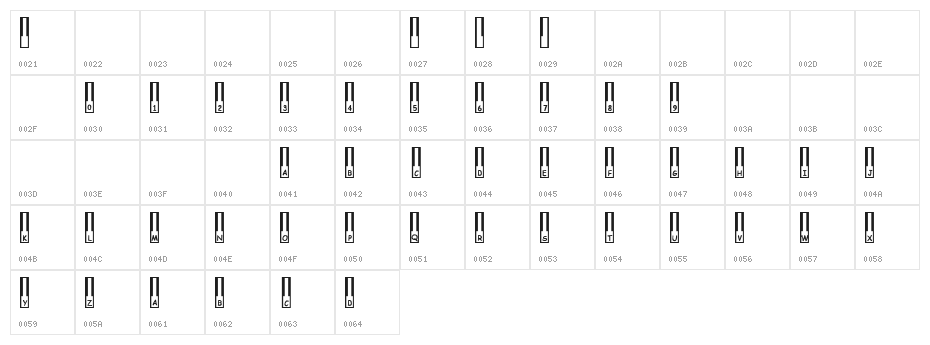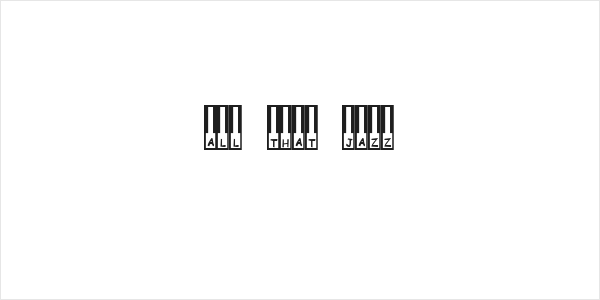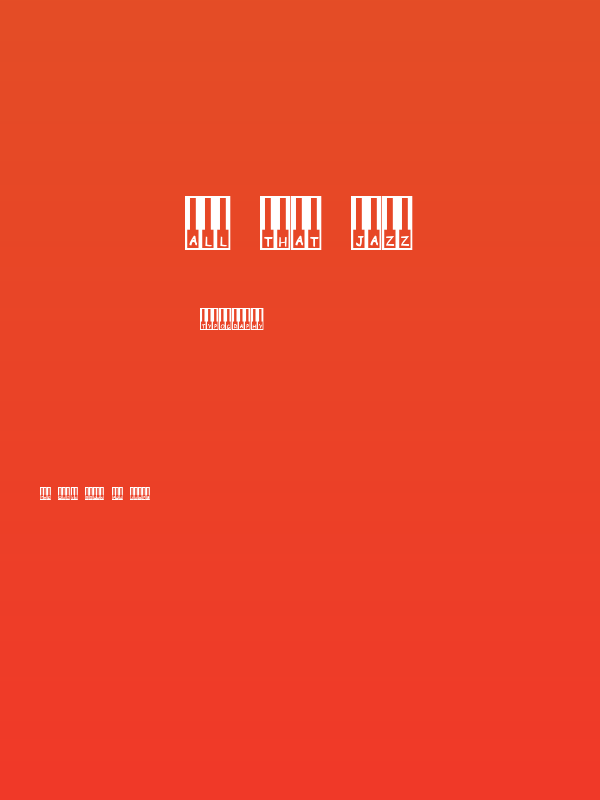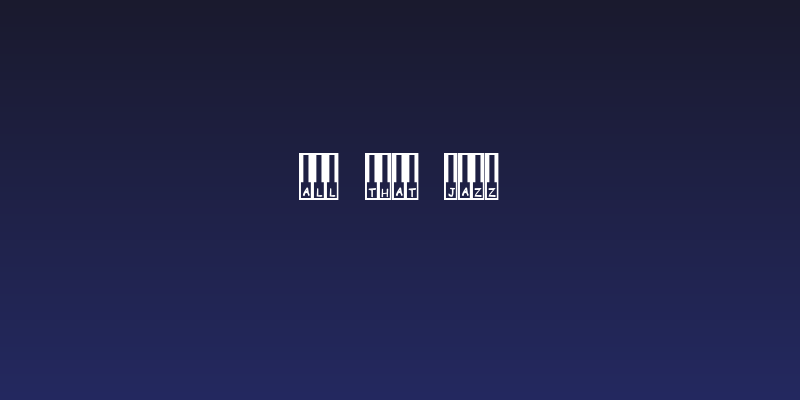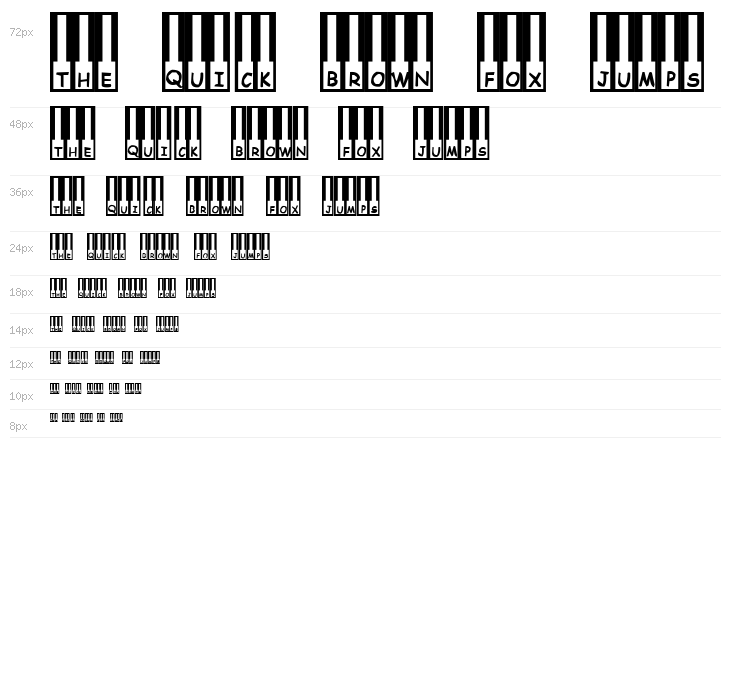
All That Jazz Font
All That Jazz Description
This font is a creative and playful design that mimics the appearance of piano keys. Each character is enclosed within a rectangular shape resembling a piano key, with the letter or number centered in a bold, sans-serif style. The design is highly decorative, making it ideal for projects that require a musical or whimsical theme. The characters are evenly spaced within their respective keys, providing a uniform and structured appearance. This font is perfect for use in music-related graphics, posters, or any project that aims to convey a sense of fun and creativity.
| Proposed Projects | Ideal for music-themed posters, event invitations, educational materials, and creative branding projects. |